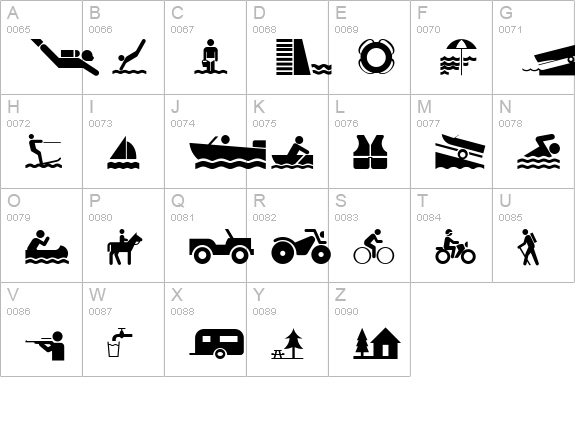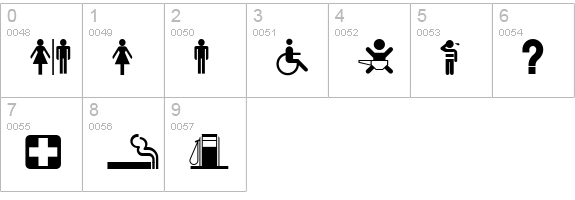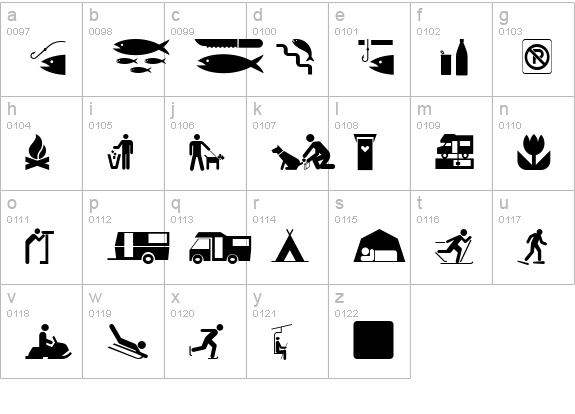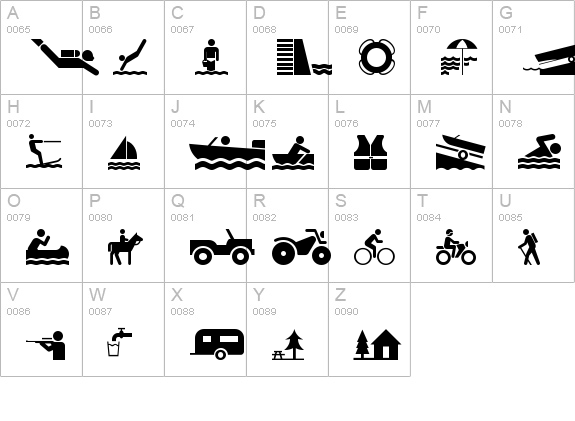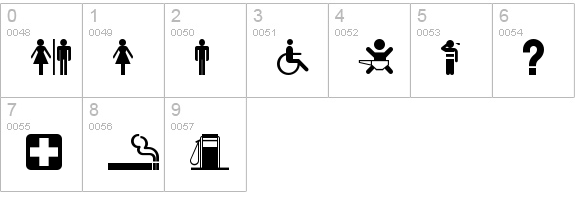
Glyphyx Two NF Font Details
Glyphyx Two NF is a stunning and versatile font that exudes elegance and sophistication. With its sleek lines and modern aesthetic, this font is perfect for a wide range of design projects, from branding to editorial design. The clean and sharp edges of Glyphyx Two NF give it a professional and polished look that will elevate any design it is used in. What makes Glyphyx Two NF even more appealing is that it is available for free download at FontsMarket.com. This means that you can enjoy the beauty and versatility of this font without any cost, making it the perfect choice for designers on a budget. Don't miss out on the opportunity to add Glyphyx Two NF to your font collection and take your designs to the next level.